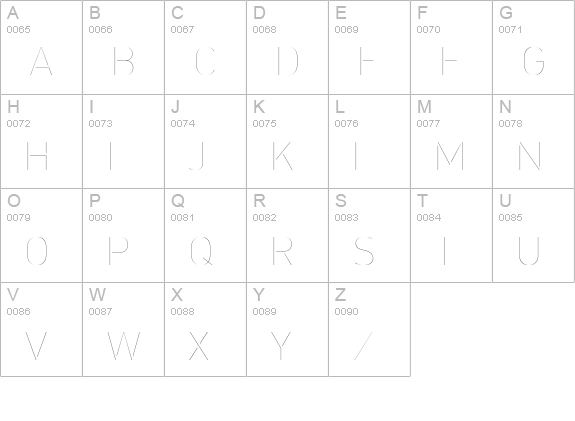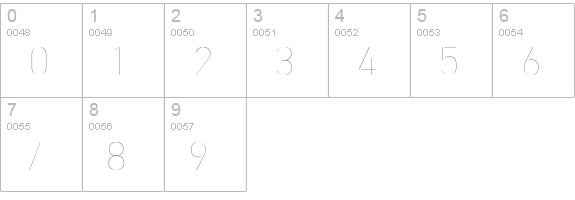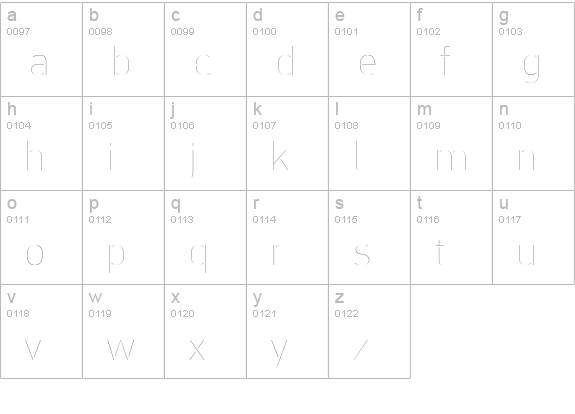
PFDinStencil-Hairline is an exceptionally fine, almost invisible variant in the PFDinStencil typeface family \xE2\x80\x94 well suited to high-end editorial, fashion, and luxury display use.
PFDinStencil-Hairline is a sleek and modern font that exudes sophistication and elegance. With its clean lines and sharp edges, this typeface is perfect for creating a bold statement in your designs. The hairline weight adds a sense of delicacy and refinement, making it ideal for projects that require a touch of finesse. Best of all, PFDinStencil-Hairline is available for free download at FontsMarket.com. This means you can easily access this stunning font to elevate your projects without any cost. Whether you're working on branding, packaging, or any other creative endeavor, PFDinStencil-Hairline is sure to make a lasting impression. Download it today and add a touch of modern elegance to your designs.